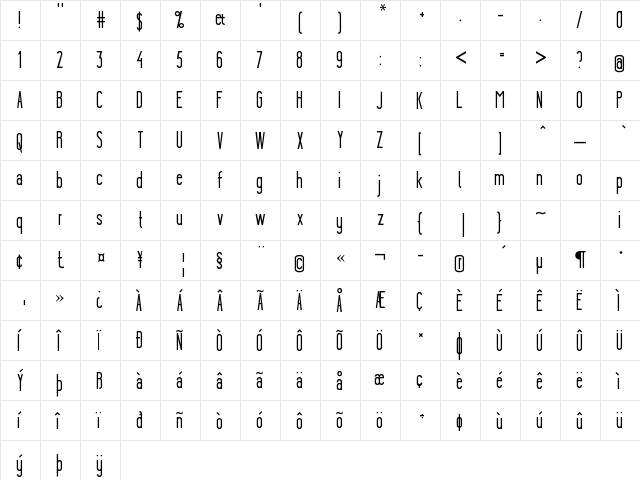
Ygraine Solid
| Designer | Type Sailor - David Espinosa |
Design Context for Ygraine Typeface
Ygraine takes a measured approach to typography — its balanced proportions and neutral character make it a reliable workhorse for both digital and print work.